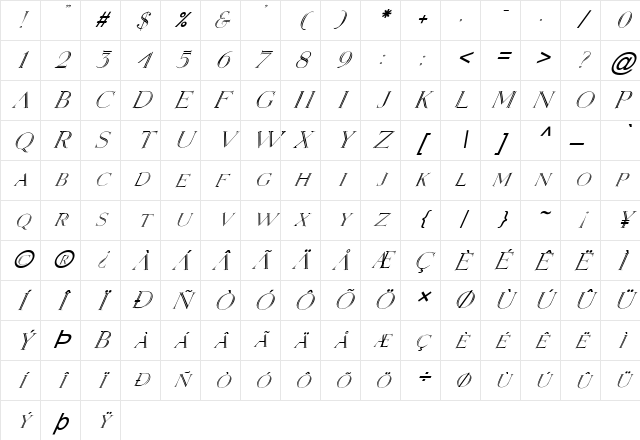
FZ OUTLINE 2 ITALIC Normal
Design Context for FZ OUTLINE 2 ITALIC
FZ OUTLINE 2 ITALIC is built around its visual character rather than neutral utility - its distinctive forms are designed to make an impression at display sizes. The slanted form adds forward momentum and visual energy.
Font Pairing: Pair with a clean neutral sans-serif for body copy to let FZ OUTLINE 2 ITALIC's character lead without overwhelming the composition.
Pro Tip: Use FZ OUTLINE 2 ITALIC exclusively at display sizes - it was designed to be seen, not read at length. Let a neutral companion handle body copy.